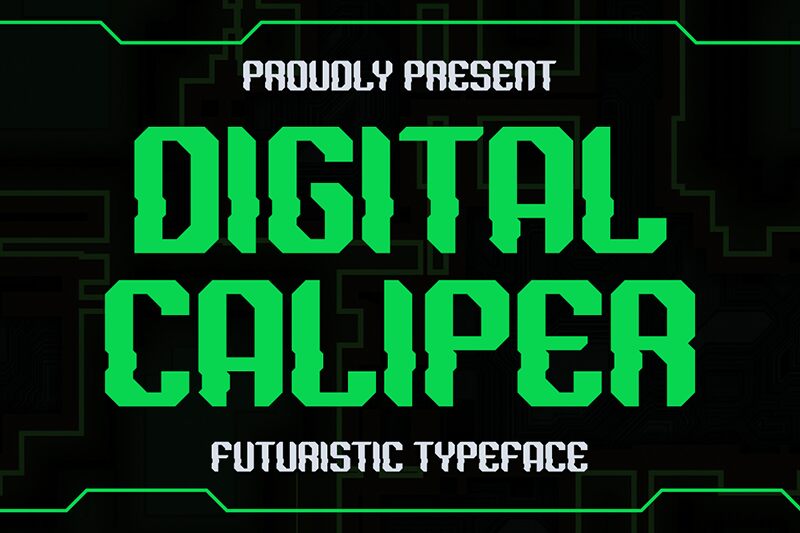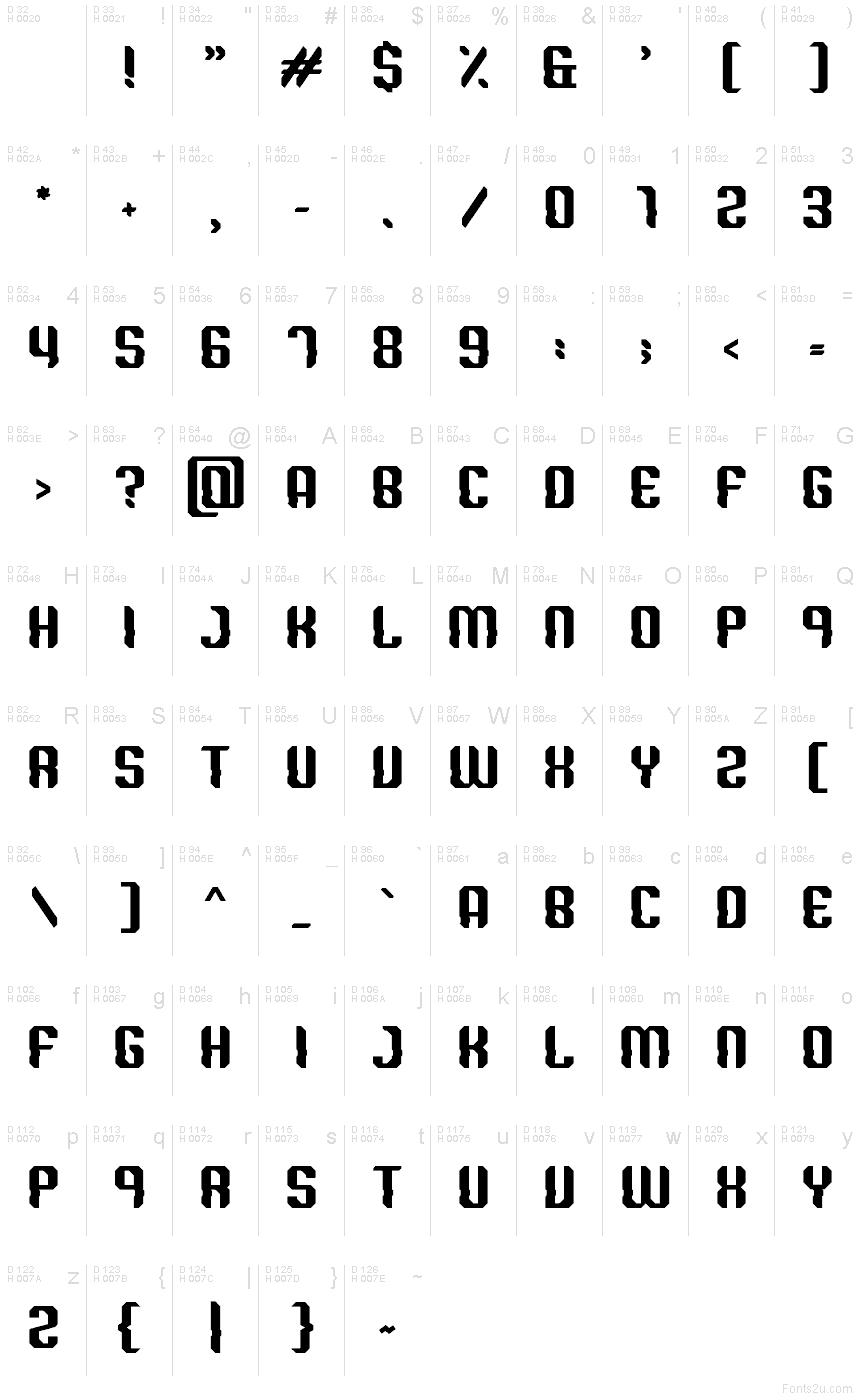
DIGITAL CALIPER
Digital caliper font by Gilang Ternadho is a free futuristic display typeface. Its letterforms feel machined rather than drawn—narrow verticals, squared shoulders, and crisp notches snap together like caliper jaws. The rhythm is compact and mechanical, giving headlines a solid, engineered presence that reads cleanly even at a glance. Set it big and it hits like stamped metal.
Using Digital caliper, you’ll get instant sci‑fi grit for game titles, tech event posters, esports logos, hardware packaging, album covers, and bold signage. The angular cuts create a built‑in texture that stands out on dark or neon backgrounds. For supporting text, pair it with a neutral geometric sans to keep the message clear; this free font does the heavy lifting in the headline.